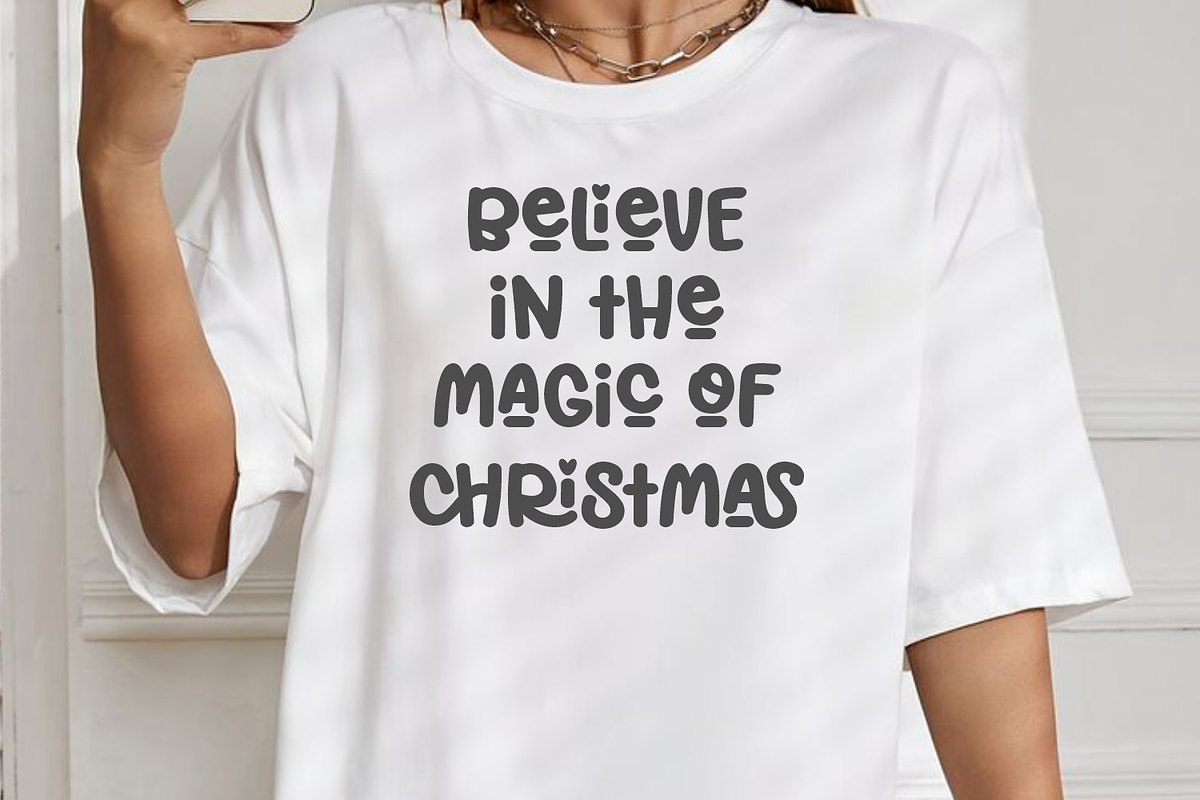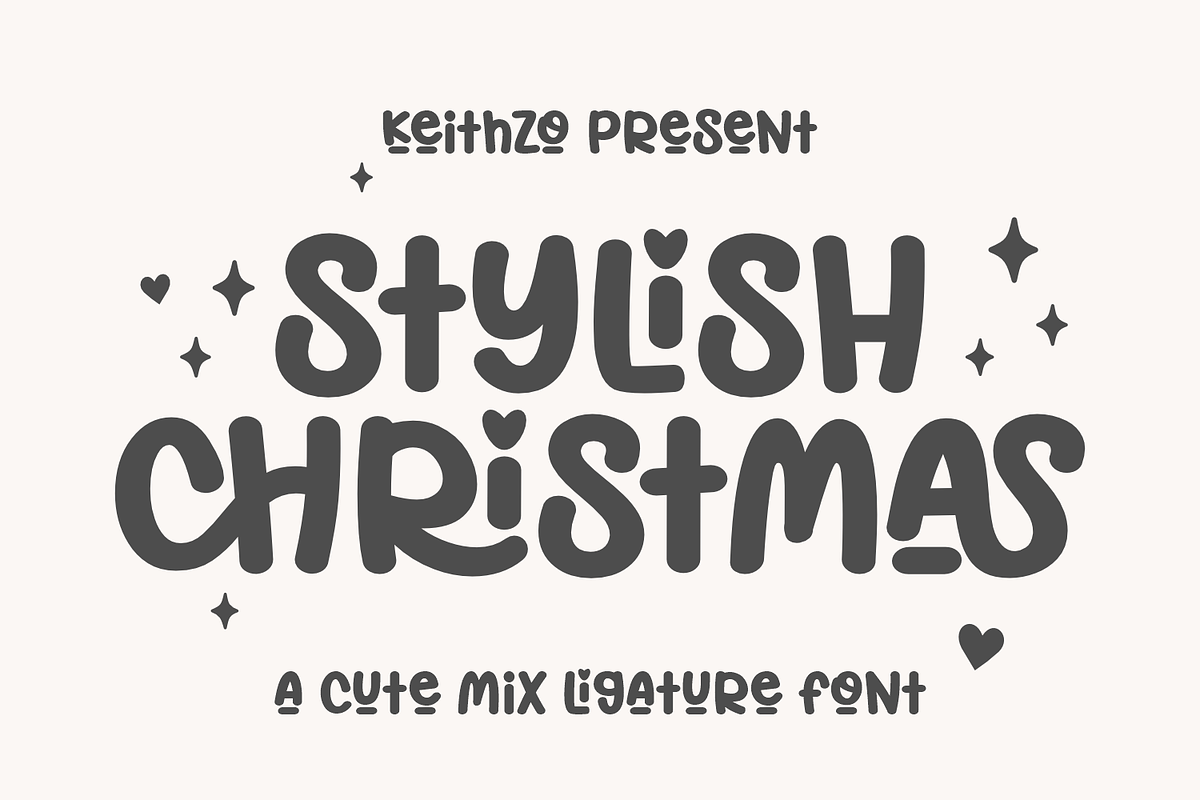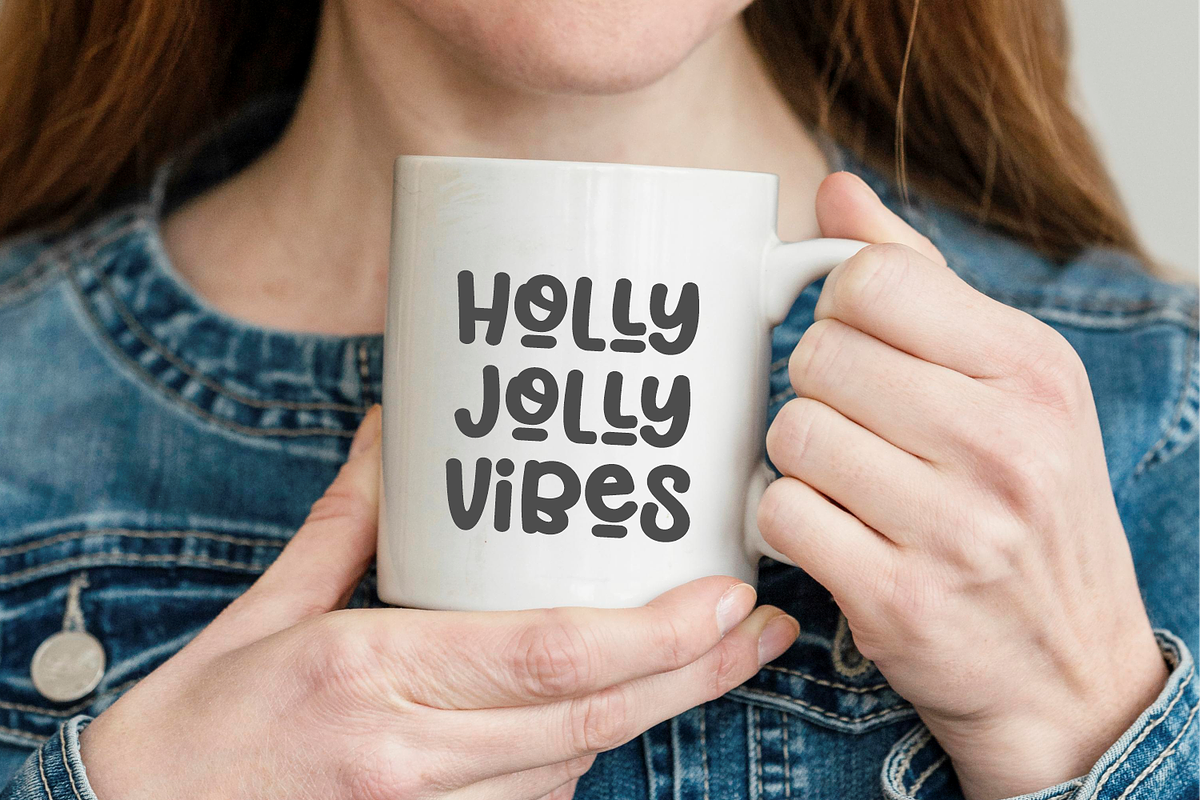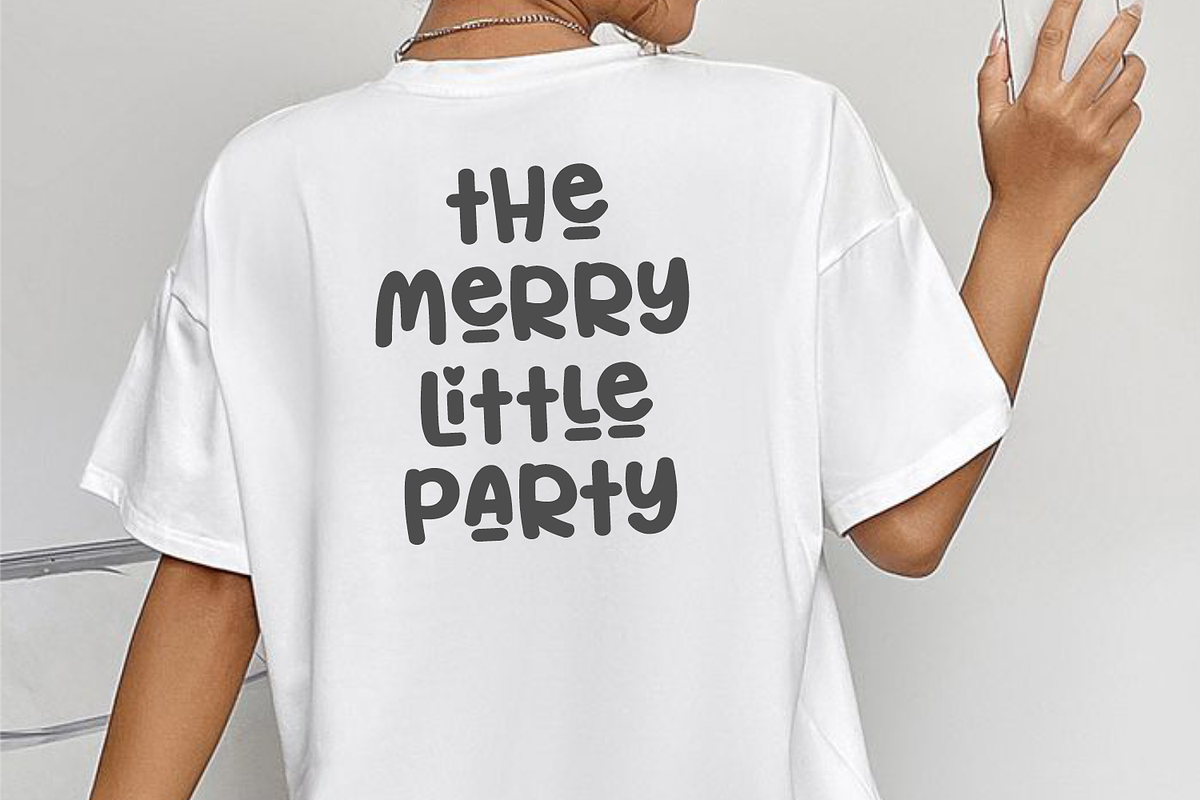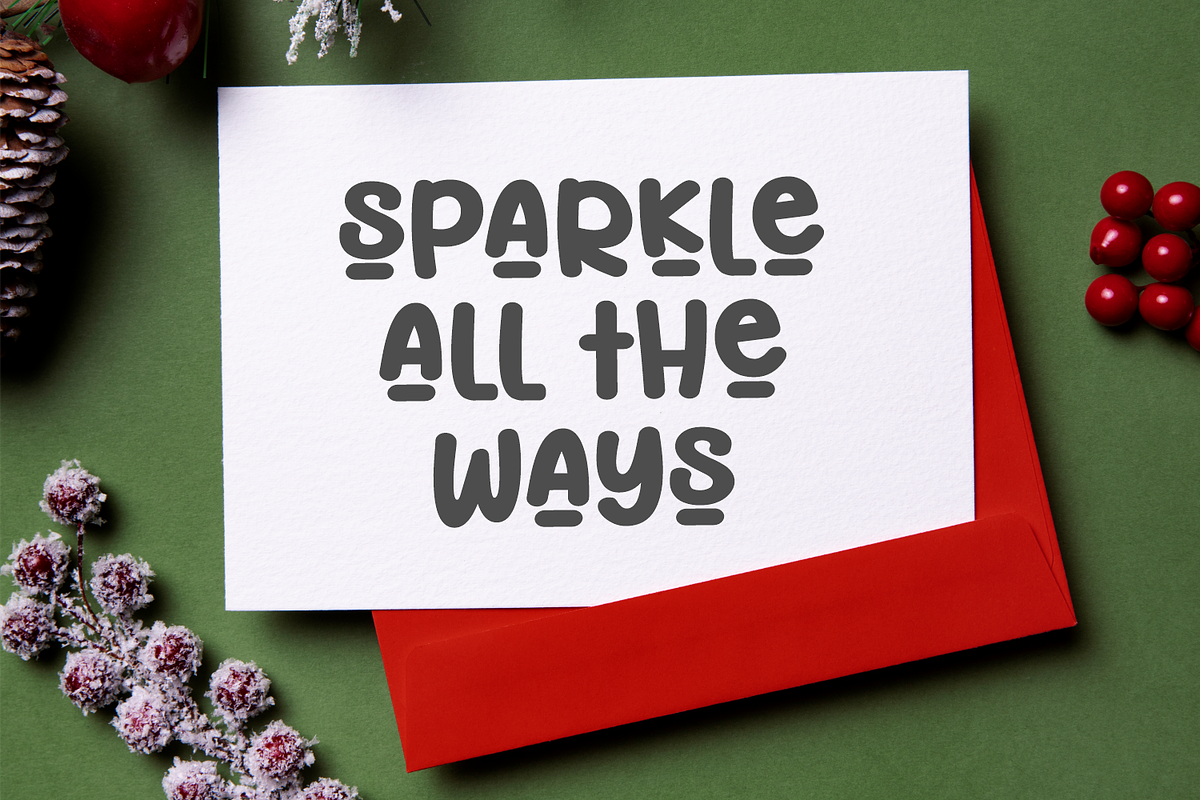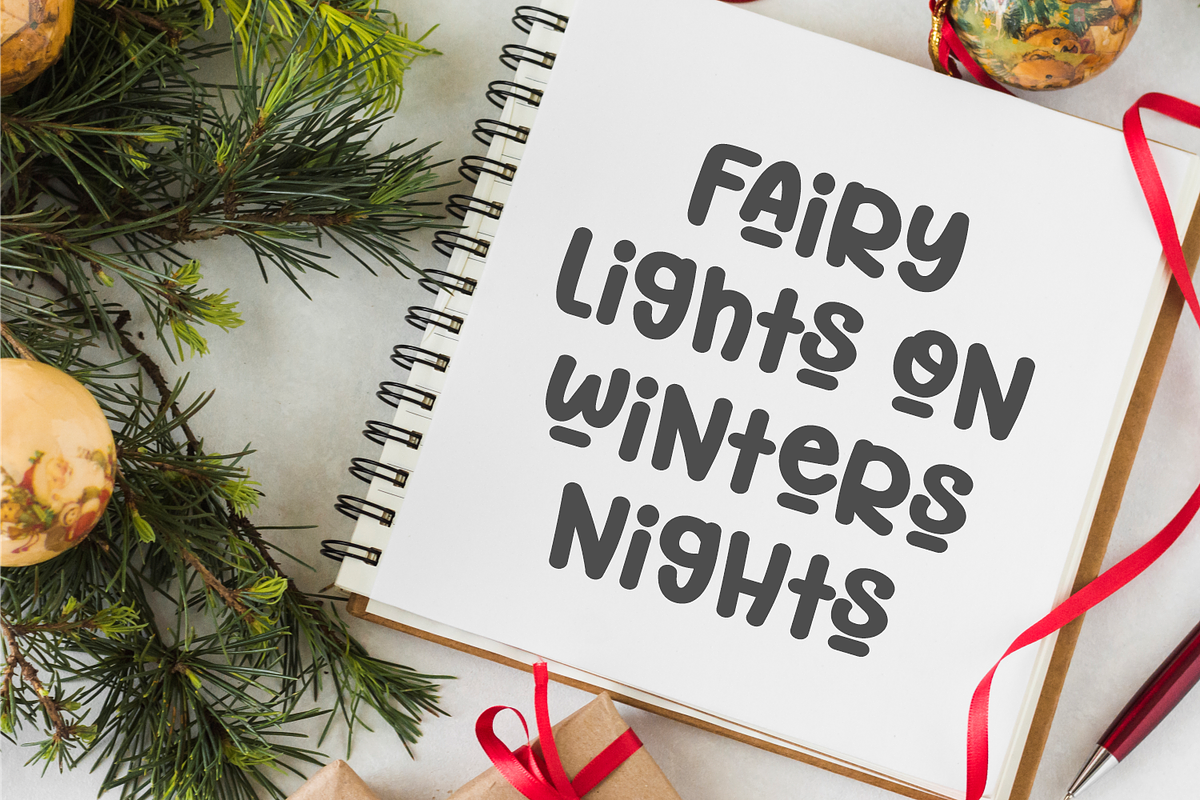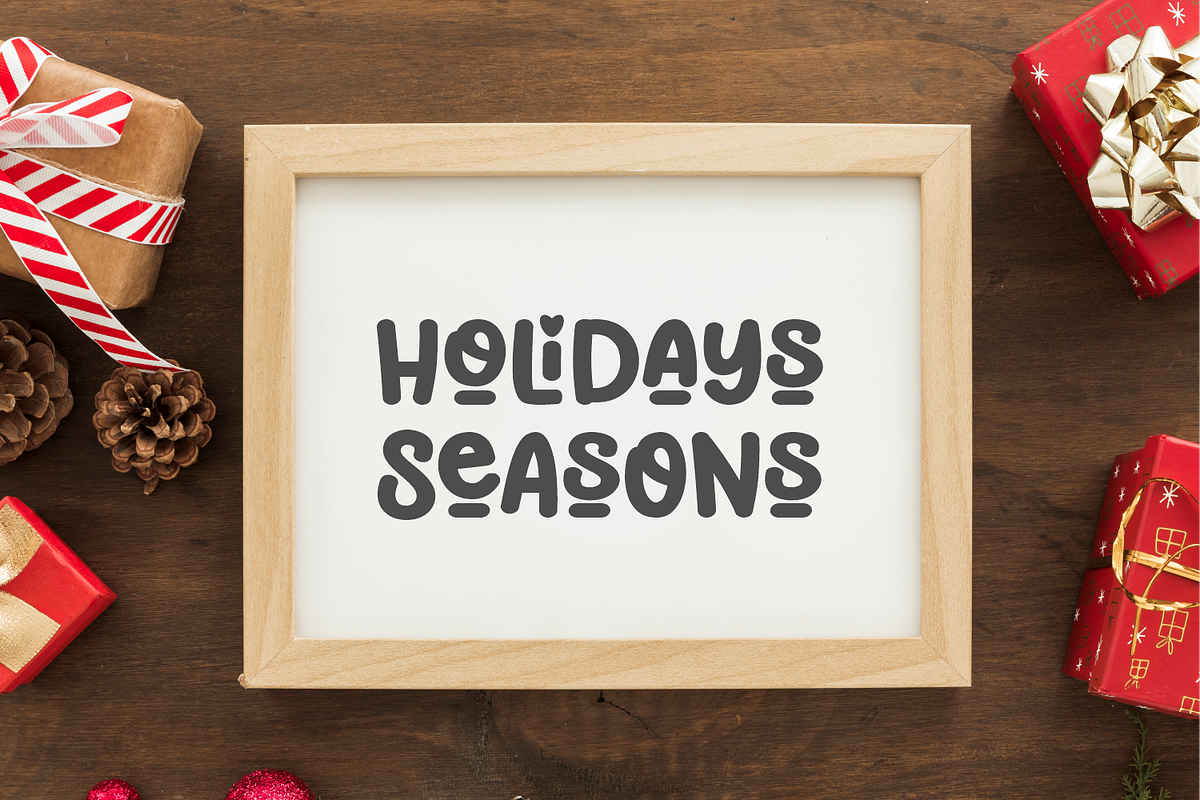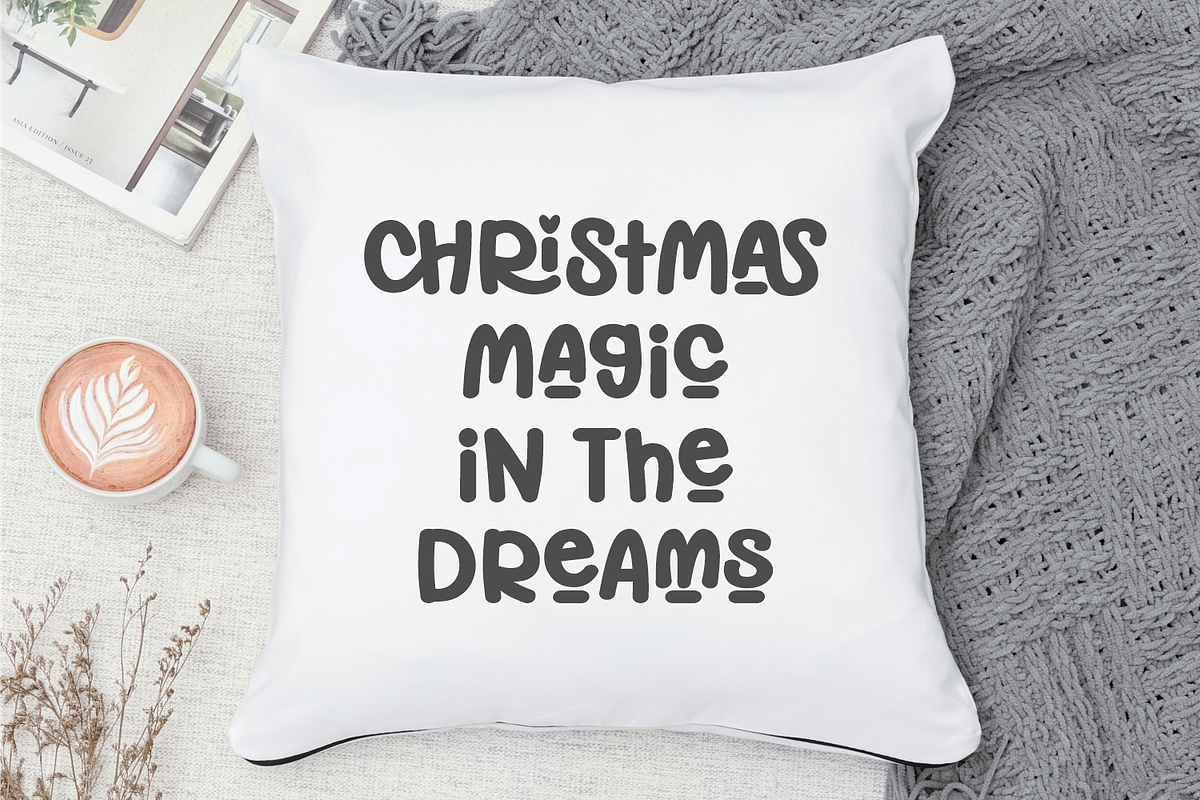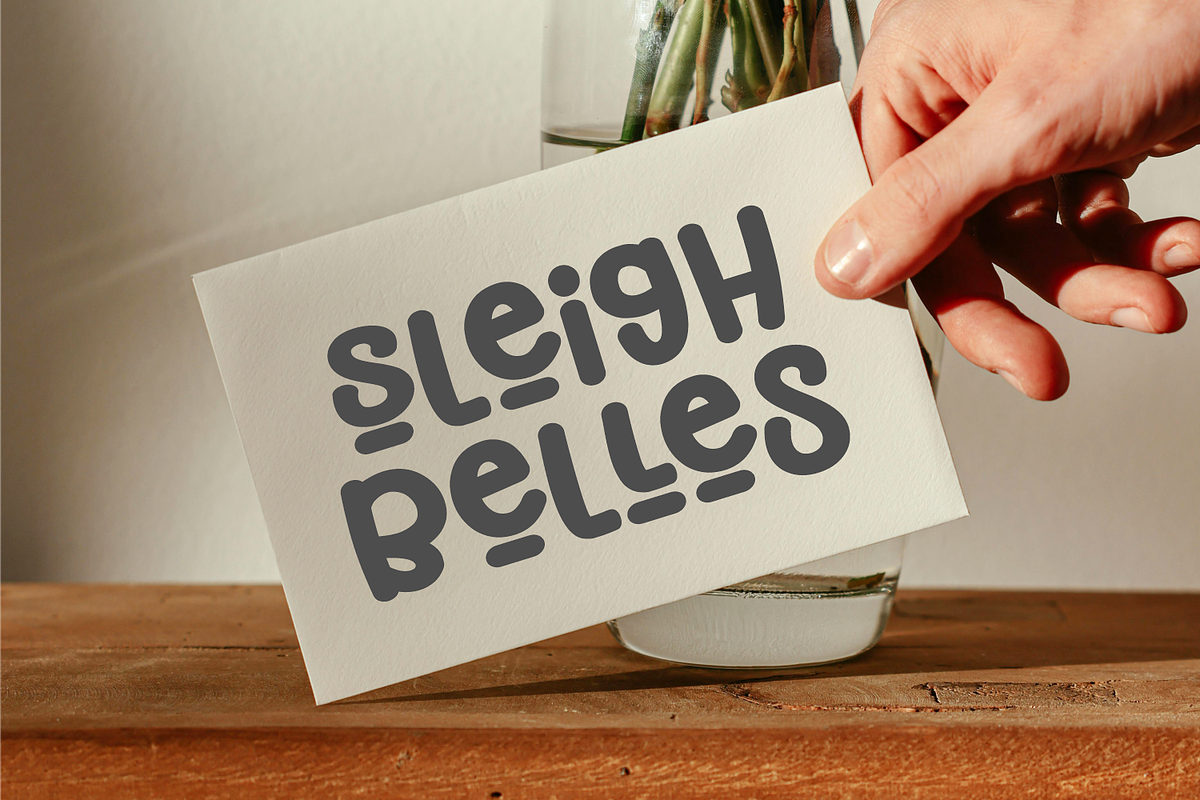
Stylish Christmas - Ligatures Font
Introducing Stylish Christmas, a charmingly combined ligatures font that personifies the holiday spirit. This typeface serves as an ideal solution for all your yuletide needs from fashionable tees, charming picture frames, and festive mugs to unique greeting cards. With Stylish Christmas, every piece of your notebook, business card, or pillow becomes beautifully festive. Cherish your holiday season with every stroke of this magical font.